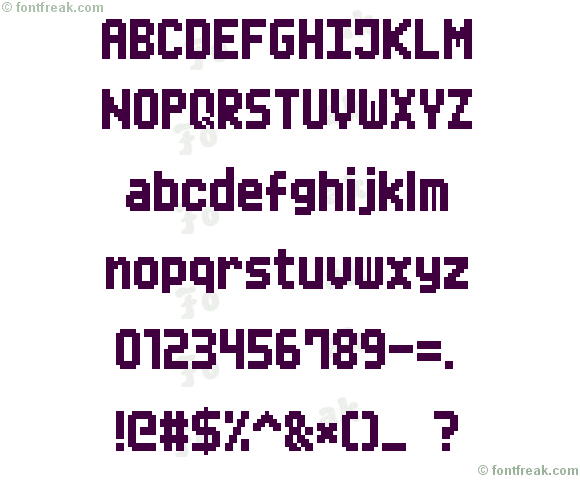
Mini Pixel-7
About Mini Pixel-7
The Mini Pixel-7 font by Style-7 is a distinctive display typeface that embodies the retro charm of pixelated graphics. This font is characterized by its blocky, modular design, reminiscent of classic video games and early digital displays. With a uniform stroke weight and minimal contrast, it offers a clean and straightforward appearance that makes it both eye-catching and easy to read. The tight spacing between letters contributes to its compact look, making it particularly suitable for various creative applications.
The Mini Pixel-7 font free download makes it accessible for a range of projects. It is ideal for use in video game graphics, where its nostalgic aesthetic can enhance the overall theme. Additionally, it works well for tech-oriented branding, giving a modern yet retro vibe to logos and promotional materials. Graphic designers can utilize it in posters for retro-themed events or festivals, while content creators may find it perfect for YouTube thumbnails or social media graphics aiming for a playful, vintage feel. Furthermore, small business owners looking to evoke a sense of nostalgia in their branding, such as in cafes or retro boutiques, will find this font particularly appealing.
Targeted primarily at graphic designers, small business owners, and content creators, Mini Pixel-7 stands out due to its unique blend of modern simplicity and retro flair. This font captures the essence of pixel art while remaining versatile enough for a wide array of applications. Its freeware license allows for easy incorporation into various projects, ensuring that it remains a valuable asset for anyone looking to add a touch of digital nostalgia to their design work. The Mini Pixel-7 font is not just a typeface; it’s a celebration of retro aesthetics that resonates with both creators and audiences alike.